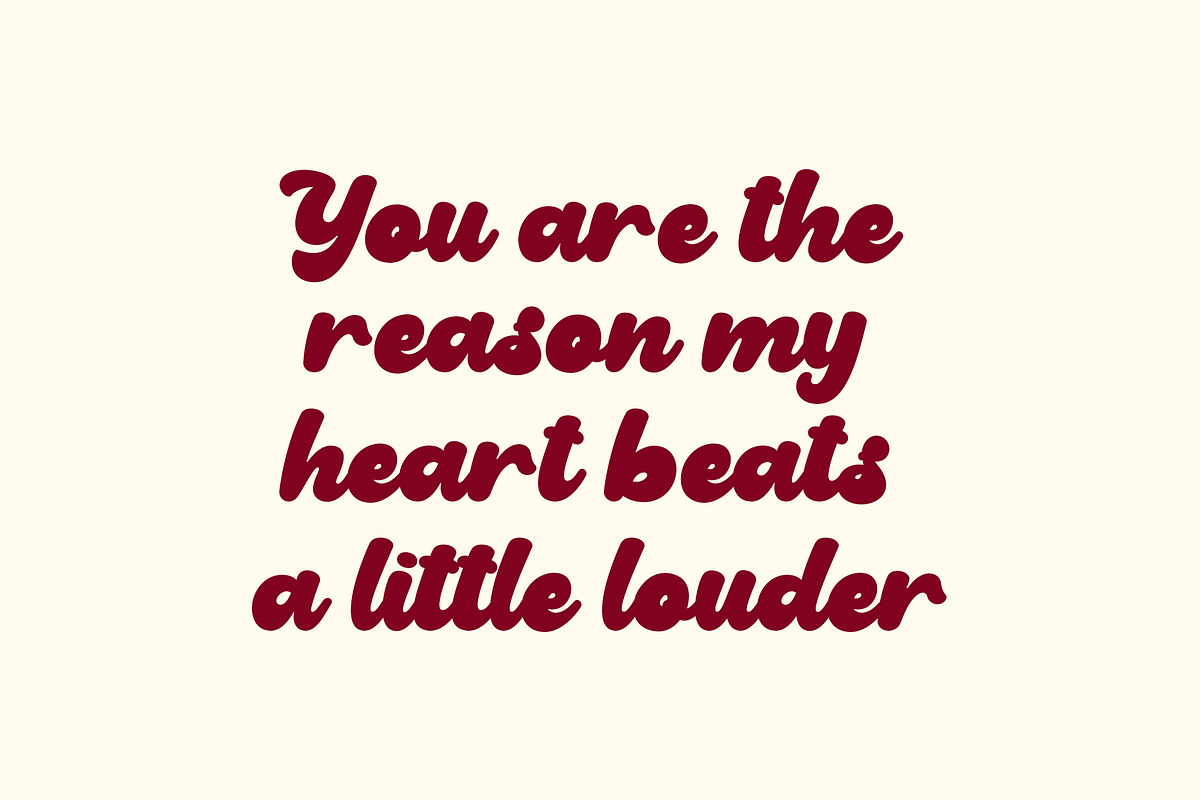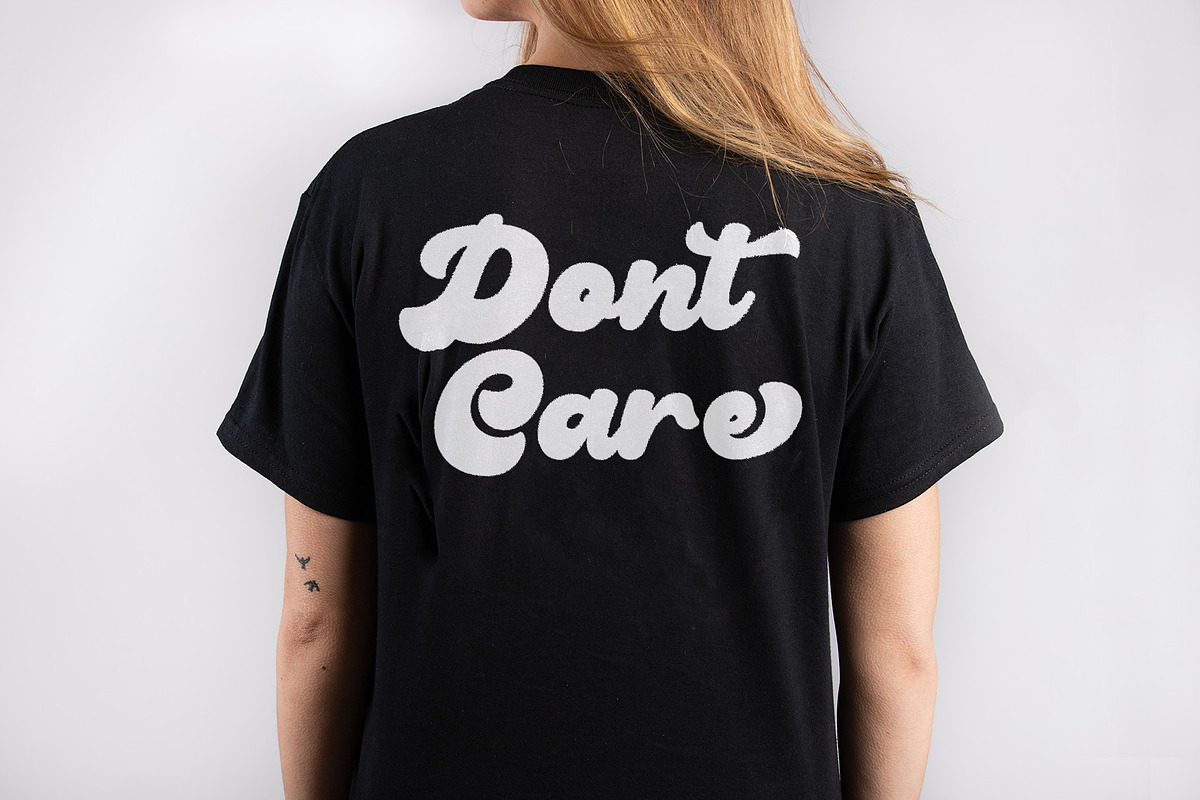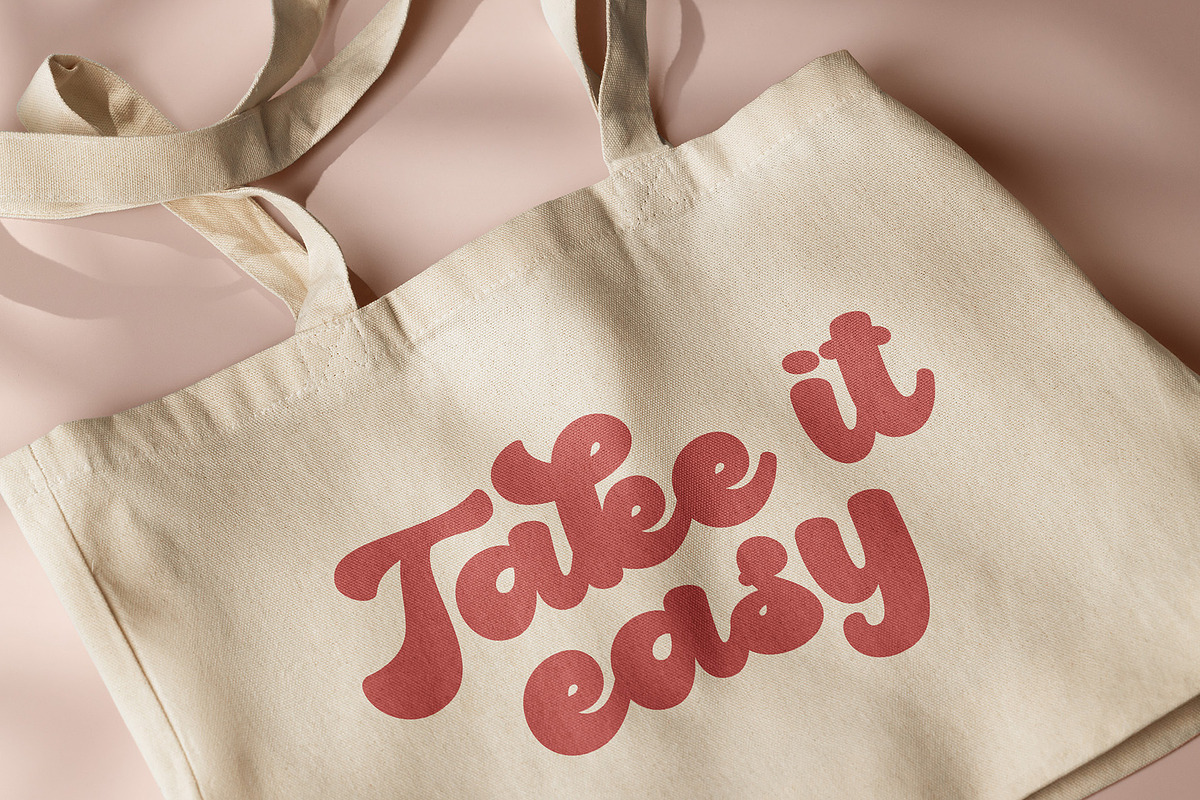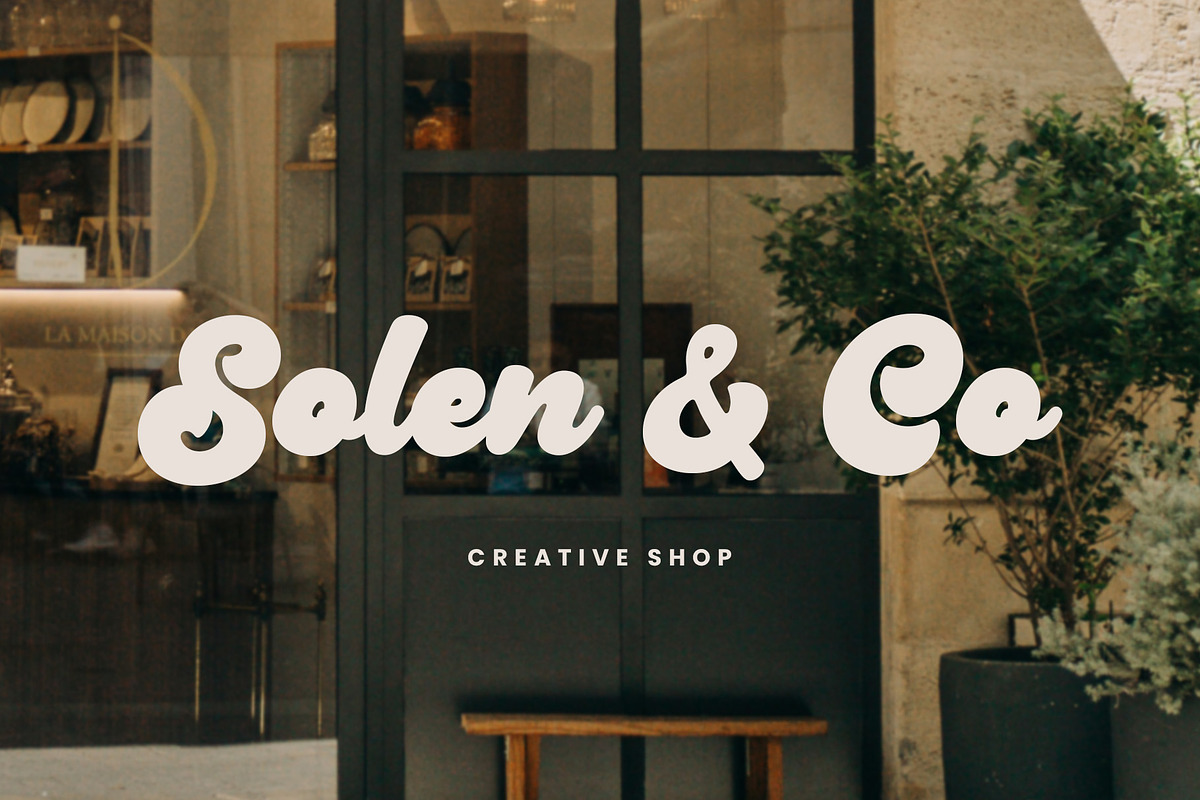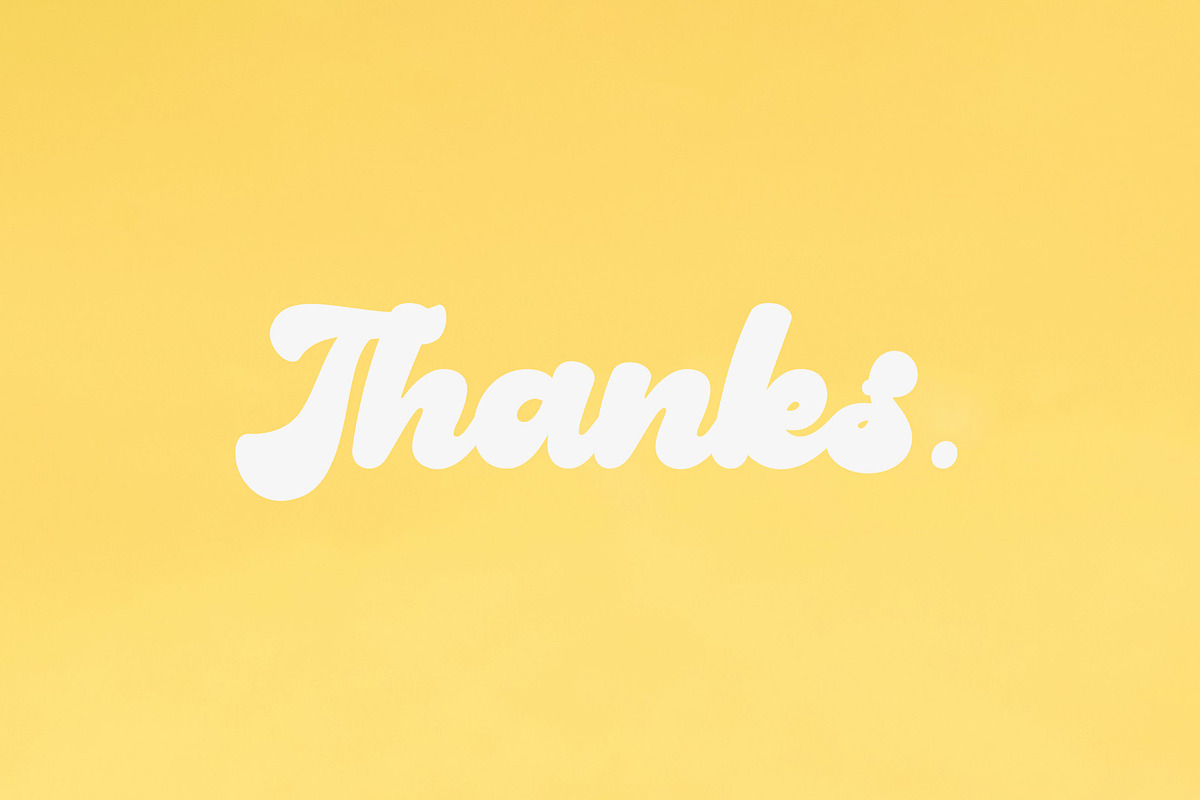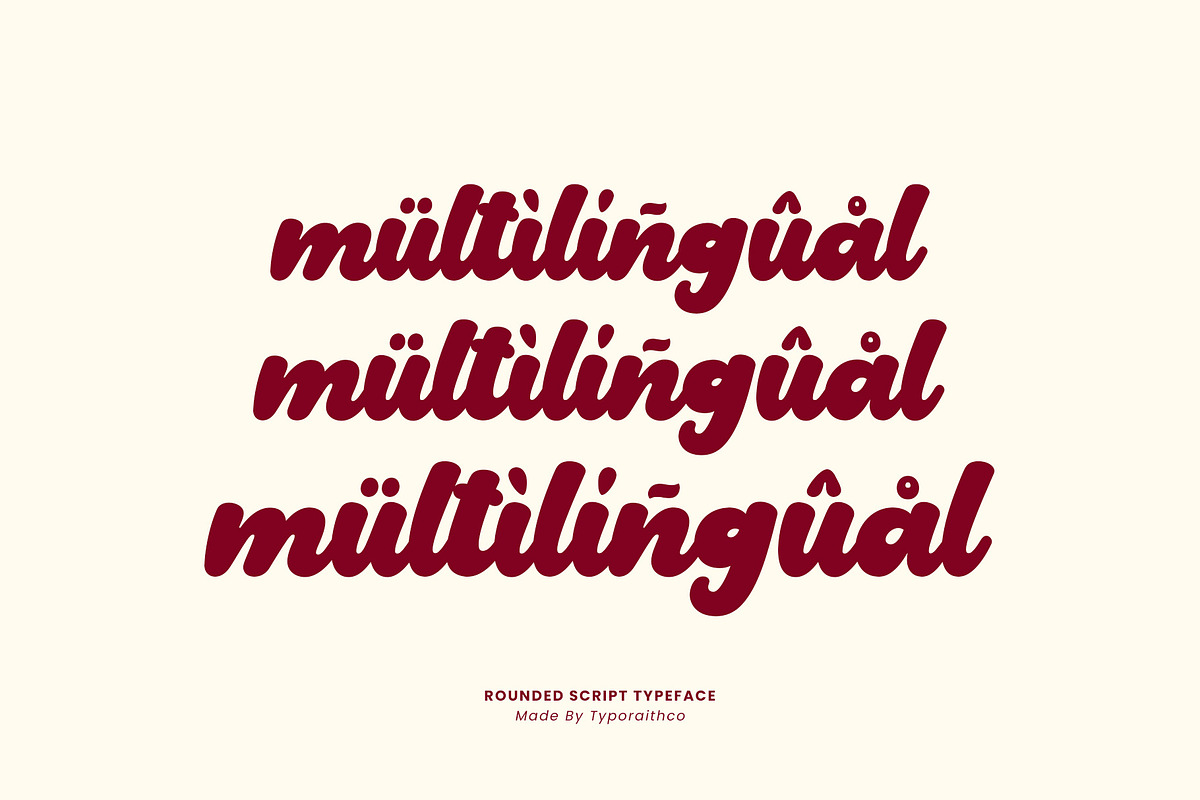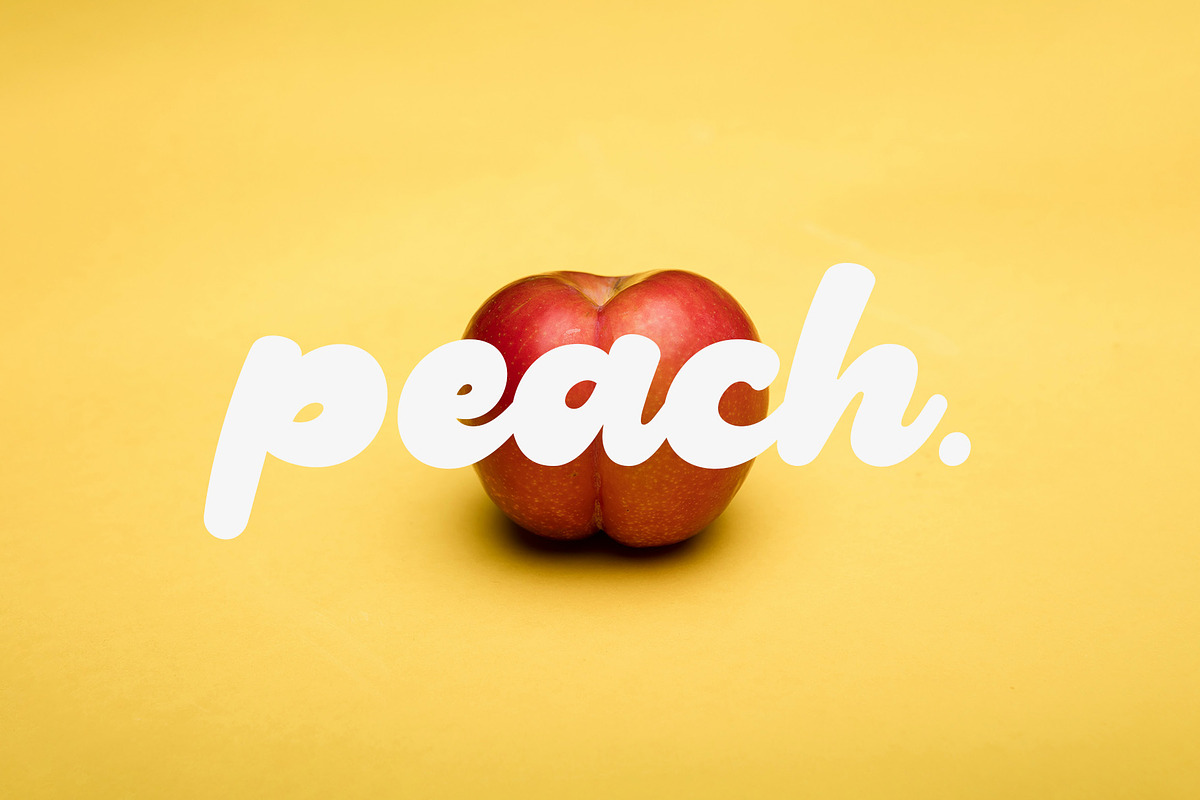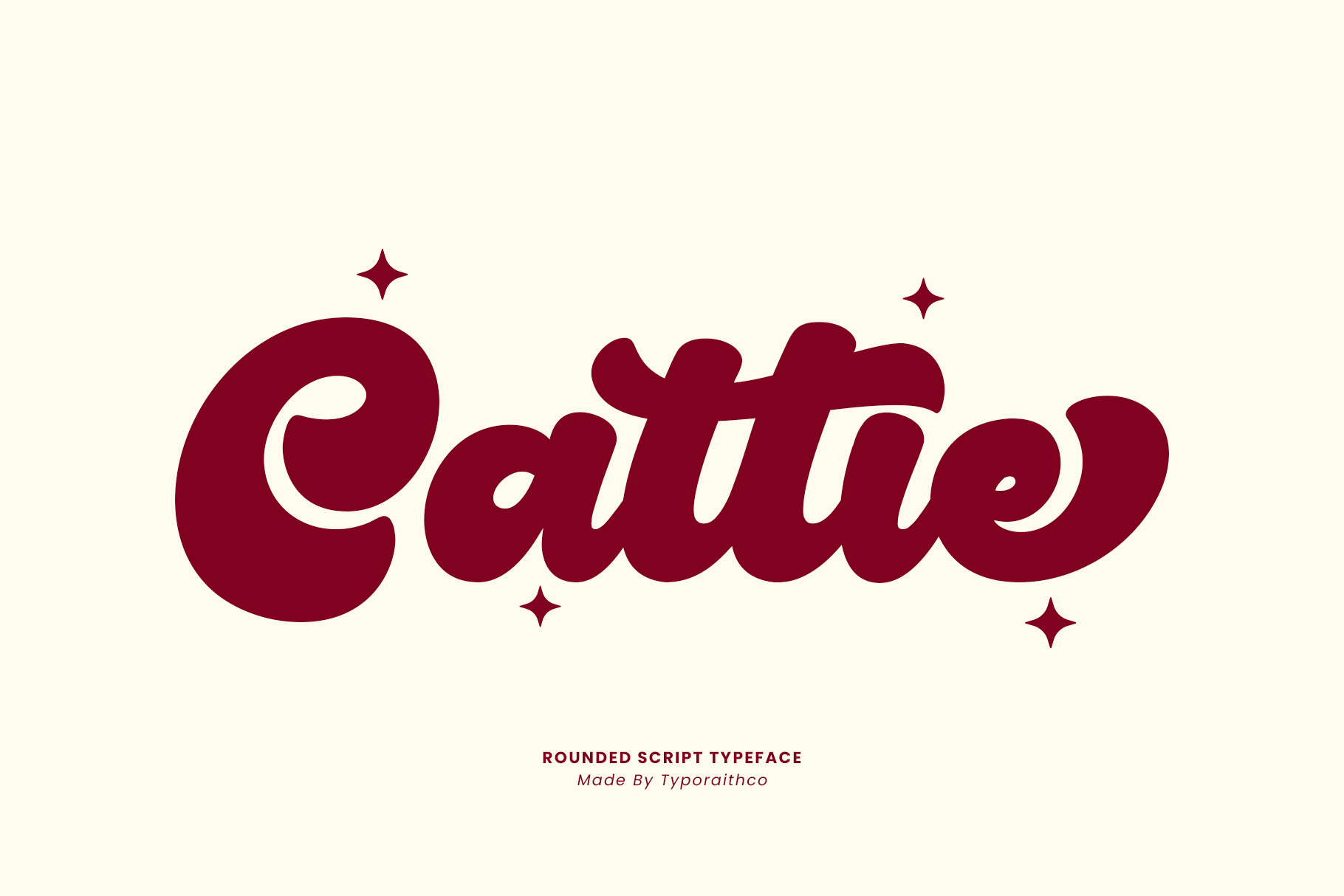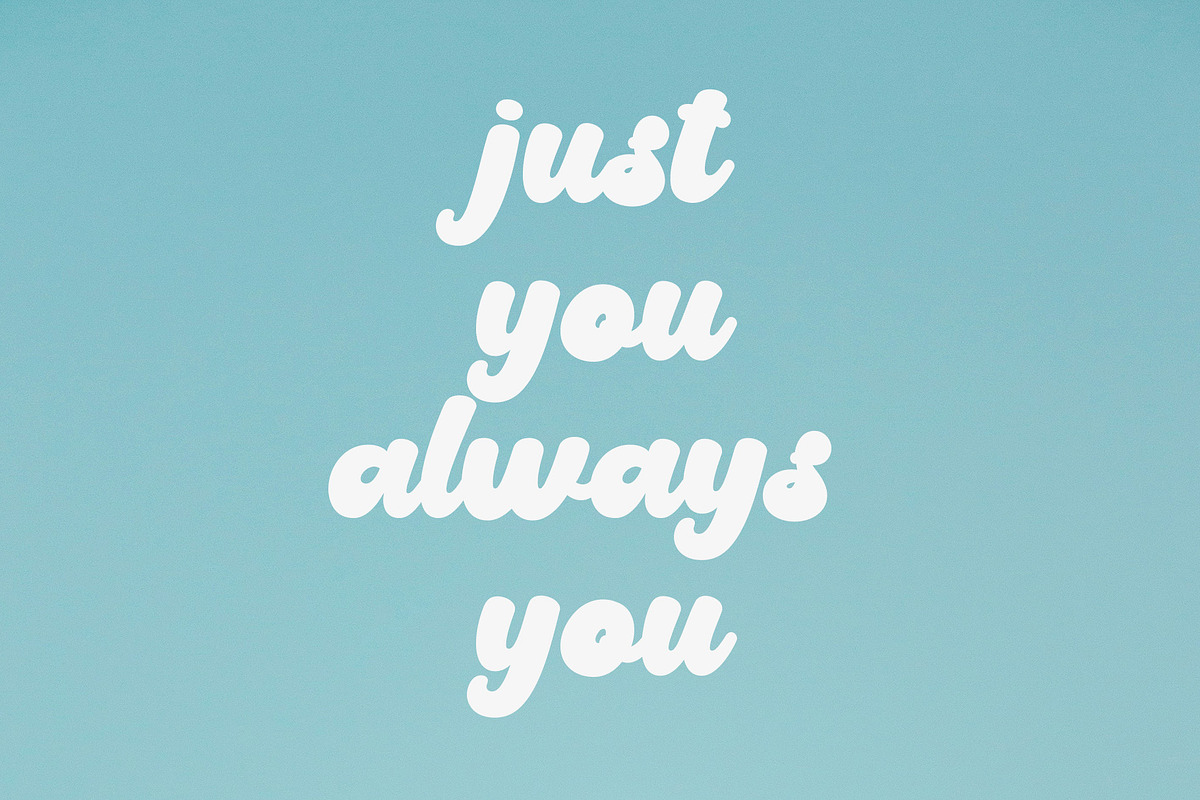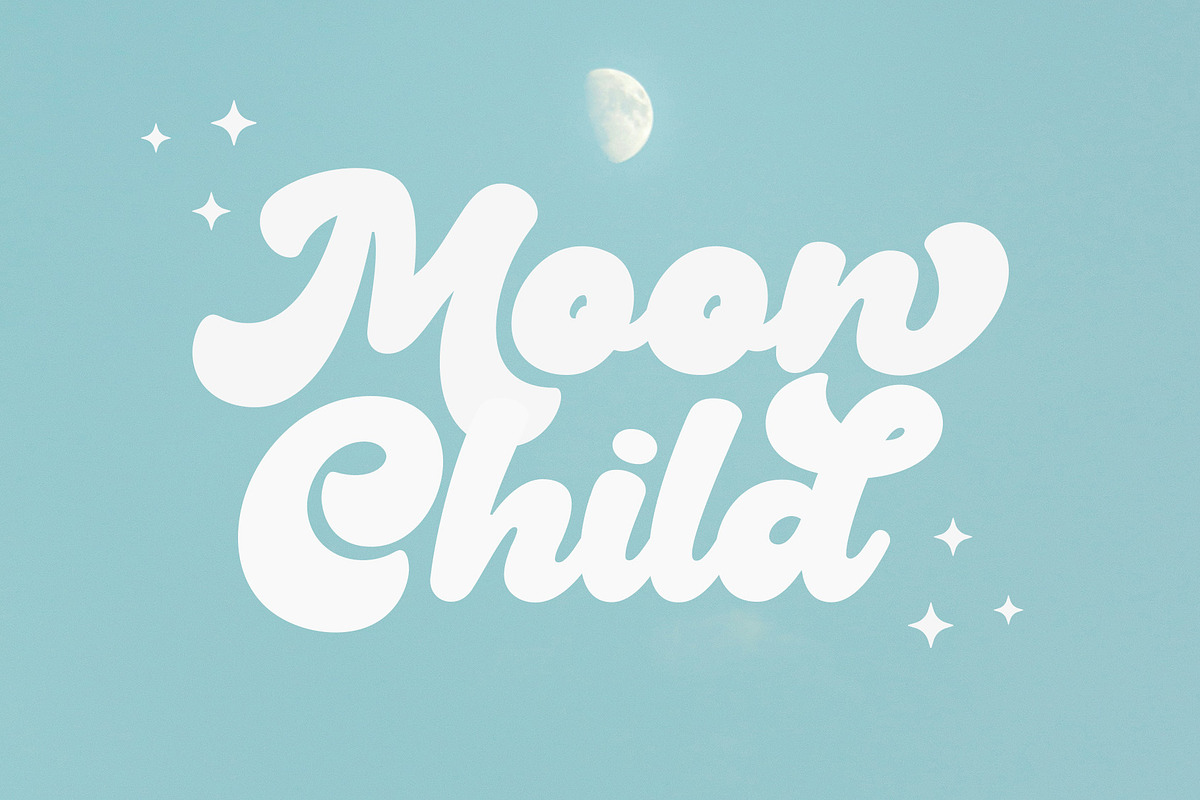
Cattie | Rounded Script Typeface
Cattie is a bold and rounded script font with a soft, playful character and retro charm. Perfect for logos, posters, product packaging, quotes, or any branding project that needs a fun and eye-catching vibe.
This font features smooth, flowing letterforms that create a friendly and energetic feel. The added star accents give your design that extra spark to make it stand out!
Uppercase & lowercase letters
Alternates & ligatures